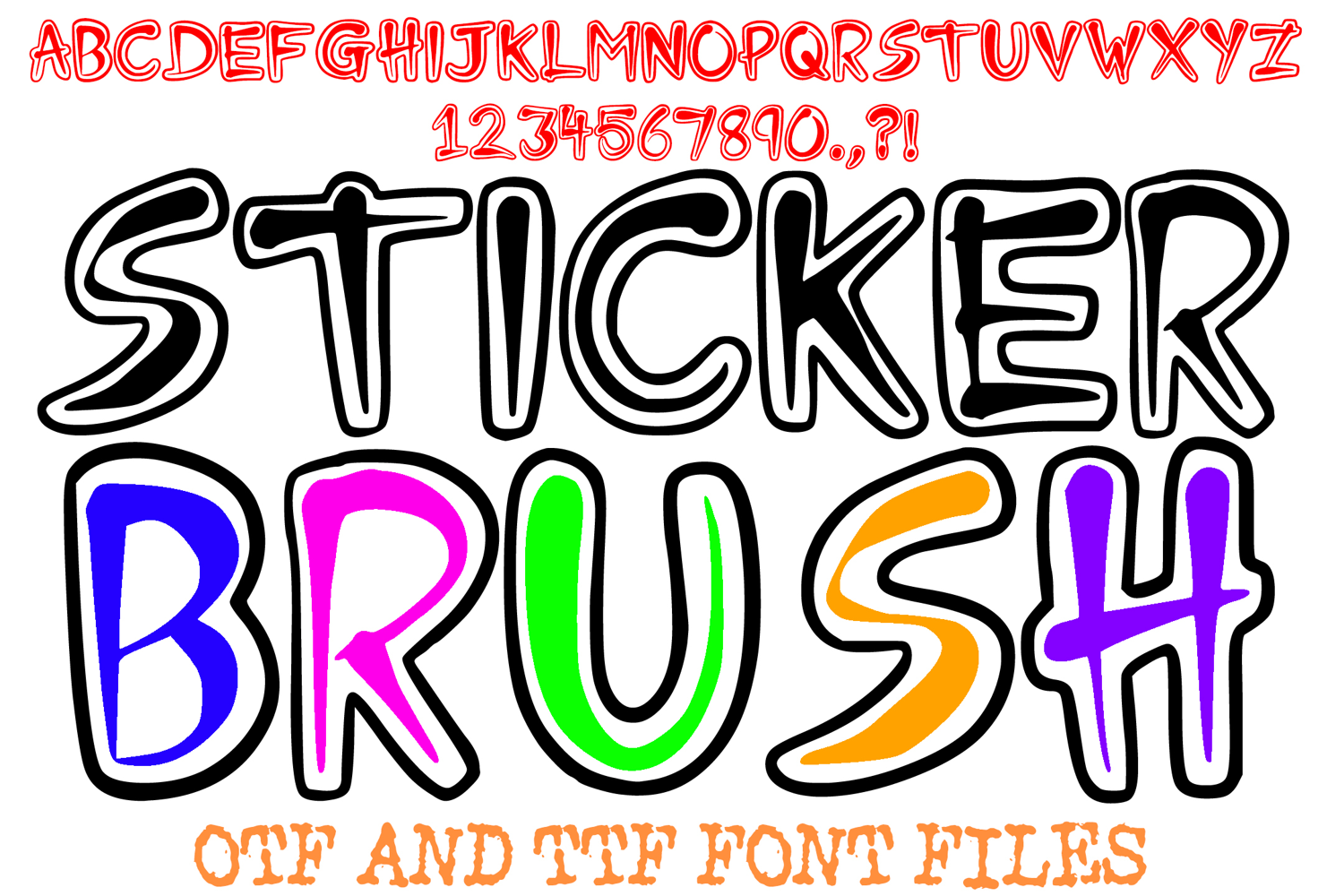
Sticker Brush Font Ink Slash Typeface Letters by Squeeb Creative
Sticker Brush Font Ink Slash Typeface Letters
Add an instant 3D effect to your designs with the Sticker Brush Font, a high-impact display typeface…